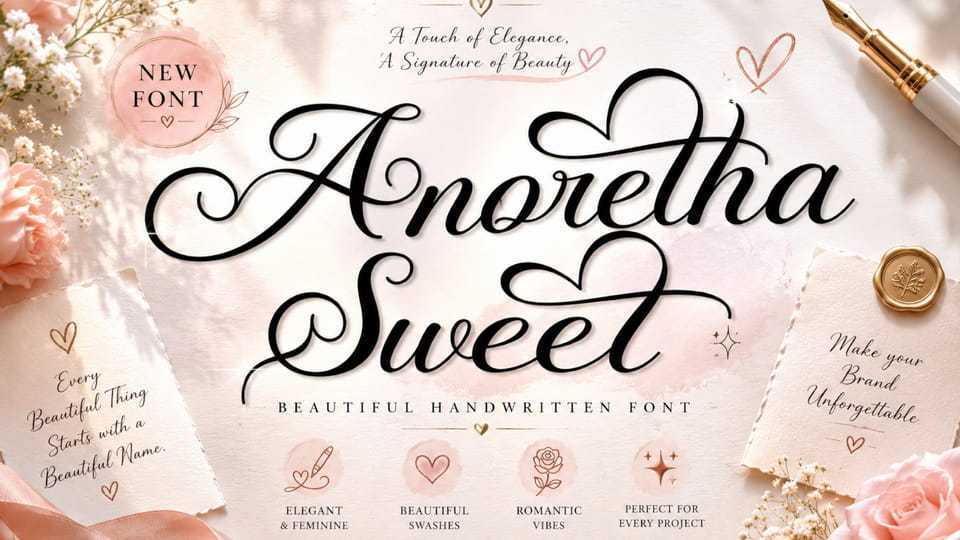
Download Anoretha Sweet font, a beautiful and elegant handwritten typeface. It’s perfect for romantic movies, wedding invitations, photography, floral arrangements, social media, advertisements.